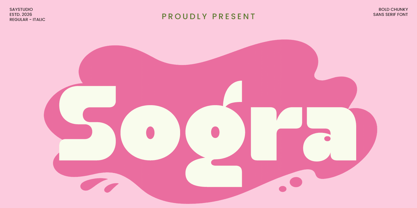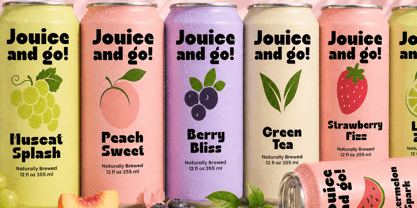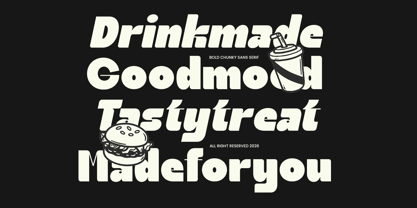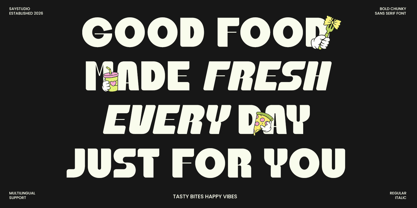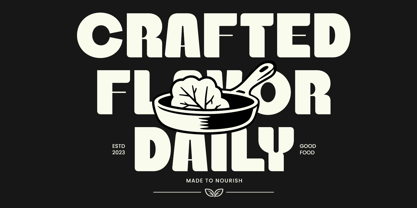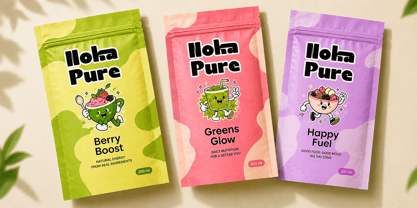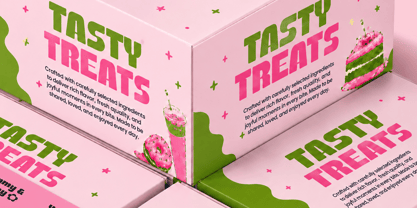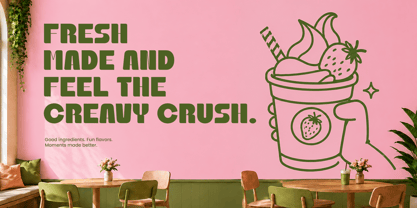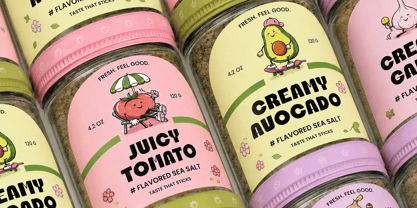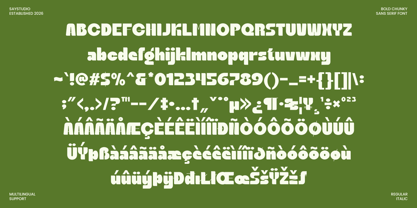
Sogra
Sogra is a bold display font designed to make food packaging stand out with confidence and personality. Its chunky letterforms, soft curves, and playful proportions create an eye-catching look that instantly attracts attention on shelves, making it perfect for snack brands, beverage labels, frozen food, candy, dessert, bakery, and fast-food packaging.
Crafted for modern packaging design, Sogra brings energy and freshness to every branding project. Whether you're designing coffee cups, juice bottles, takeaway boxes, ice cream containers, organic products, or premium food labels, this font delivers strong visual impact while maintaining excellent readability. It also works beautifully for restaurant branding, café menus, food trucks, grocery products, and promotional campaigns.
Beyond packaging, Sogra is an excellent choice for logos, advertisements, posters, social media promotions, product mockups, merchandise, and editorial headlines. If you're looking for a display font that combines playful charm with commercial appeal, Sogra is ready to give your food brand a bold and memorable identity.